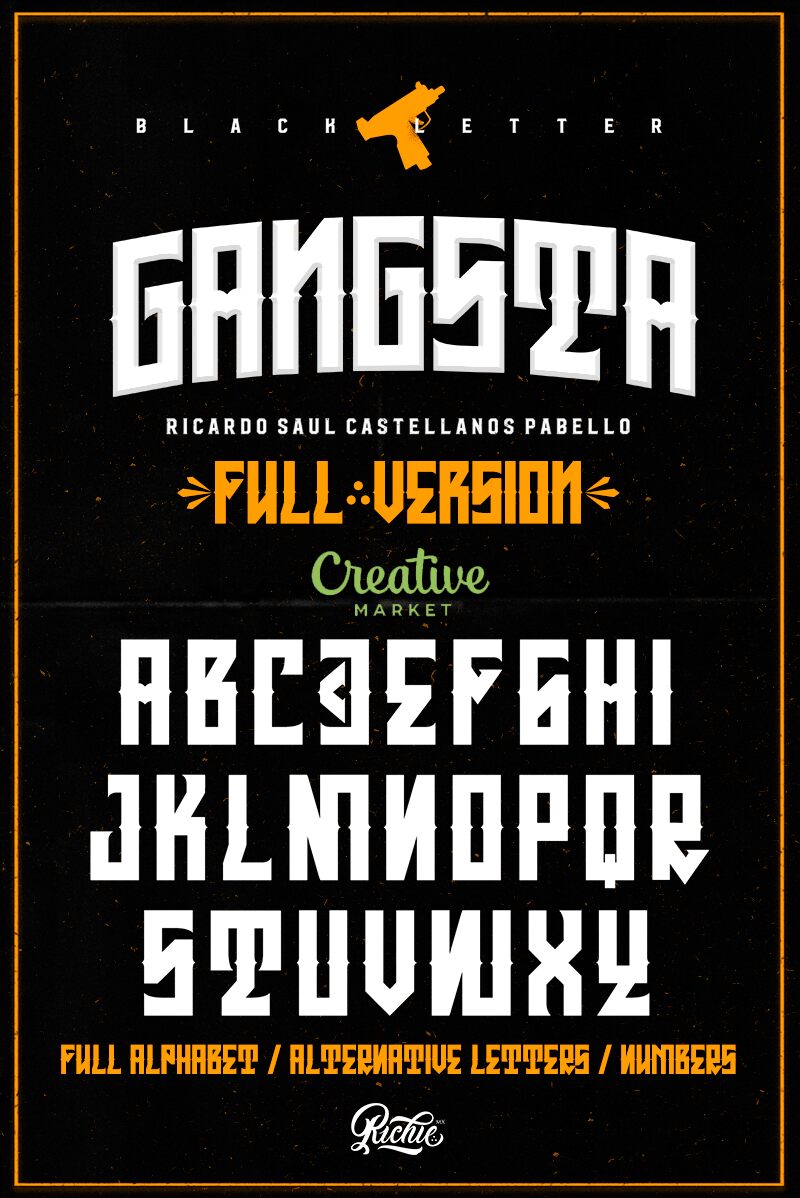
Gangsta
Gangsta font, designed by Richie Mx, is a bold and condensed gothic typeface with a modern feel that will make your designs stand out. Its unique style, reminiscent of street art and graffiti, is perfect for projects that require a touch of edginess. The bold weight and condensed width make it ideal for attention-grabbing headlines or impactful logos. Whether you're working on a music album cover, fashion brand identity or tattoo design, Gangsta font will add the right amount of attitude to your work. Get ready to bring some urban cool to your creations with Gangsta font!